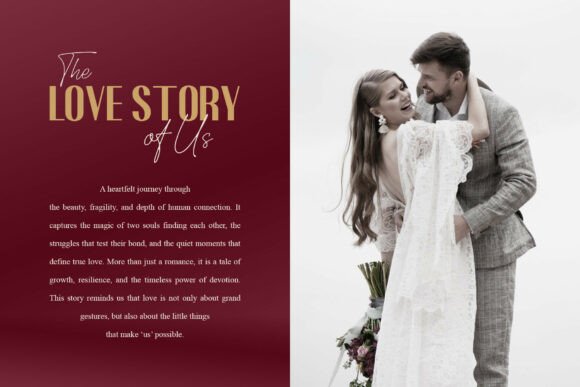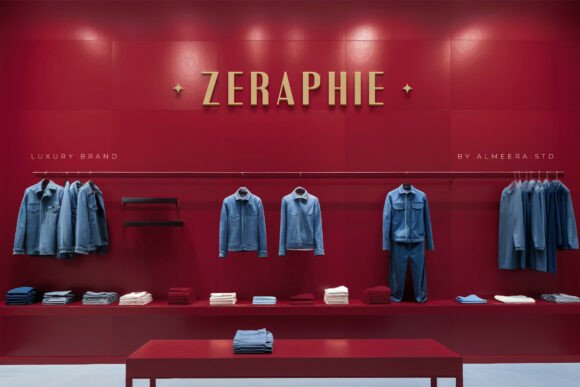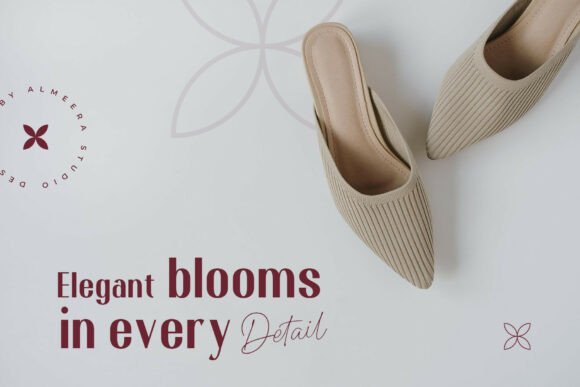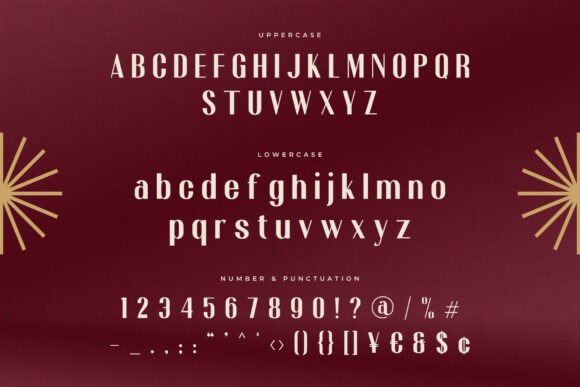
Fleur Douce Font: Elevate Your Designs with Elegance and Sophistication
In the world of typography, fonts play a crucial role in conveying the tone and personality of a design. For projects that demand a touch of sophistication, Fleur Douce font is an excellent choice. This elegant sans serif font is designed to bring refined proportions and graceful shapes to your designs, making it perfect for fashion branding, invitations, packaging, magazines, and creative digital works.
The Characteristics of Fleur Douce Font
Fleur Douce font boasts a unique blend of simplicity and elegance, making it an ideal choice for designers seeking a polished and timeless look. Its sans serif design ensures a clean and modern aesthetic, while its refined proportions and graceful shapes add a touch of sophistication. The font’s balanced design ensures that it remains legible, even at smaller sizes, making it versatile for various applications.
What Makes Fleur Douce Font Stand Out?
- Elegant Sans Serif Design: Fleur Douce font features a sleek and modern sans serif design, making it perfect for designs that require a clean and sophisticated look.
- Refined Proportions: The font’s refined proportions ensure that it remains balanced and harmonious, making it ideal for body text and headlines.
- Graceful Shapes: The font’s graceful shapes add a touch of elegance to your designs, making it perfect for luxury brands and high-end products.
- Balanced Design: Fleur Douce font’s balanced design ensures that it remains legible, even at smaller sizes, making it versatile for various applications.
Perfect for Fashion Branding and Creative Projects
Fleur Douce font is an excellent choice for fashion branding, as it exudes elegance and sophistication. Its refined design makes it perfect for:
- Fashion Branding: Use Fleur Douce font to create stunning logos, business cards, and packaging for your fashion brand.
- Invitations: Add a touch of elegance to your wedding invitations, event invitations, or any other formal invitation.
- Packaging: Use Fleur Douce font to create beautiful and sophisticated packaging for your products.
- Magazines: Fleur Douce font is perfect for magazine headings, subheadings, and body text, adding a touch of elegance to your publication.
- Creative Digital Works: Use Fleur Douce font to create stunning digital works, such as website headers, social media graphics, and more.
Tips for Using Fleur Douce Font Effectively
To get the most out of Fleur Douce font, follow these tips:
- Pair with Other Fonts: Pair Fleur Douce font with other fonts to create a unique and visually appealing design.
- Use for Headings and Titles: Use Fleur Douce font for headings and titles to add a touch of elegance to your design.
Fleur Douce font is an excellent choice for designers seeking to add a touch of elegance and sophistication to their designs. Its refined proportions, graceful shapes, and balanced design make it perfect for fashion branding, invitations, packaging, magazines, and creative digital works. With its versatility and legibility, Fleur Douce font is sure to elevate your designs to the next level.